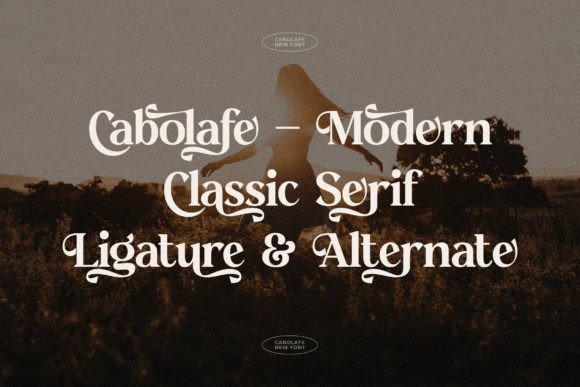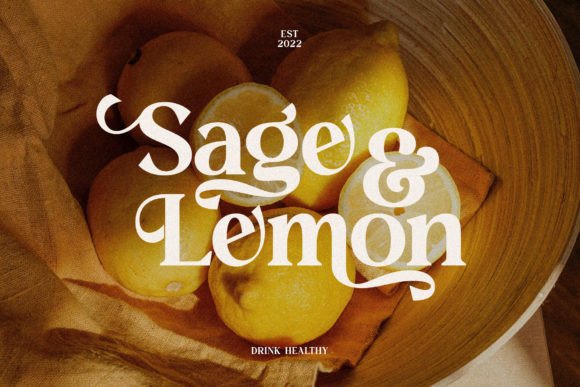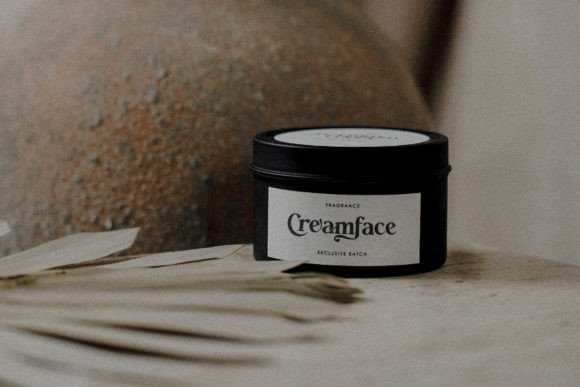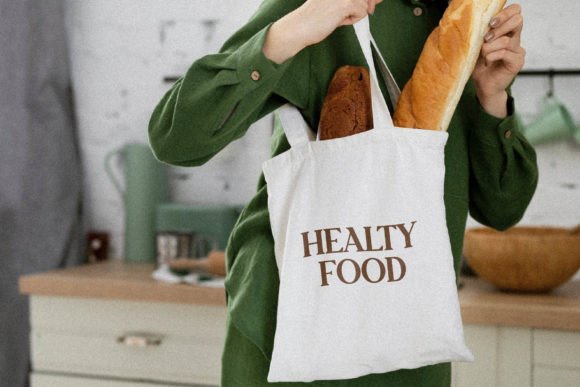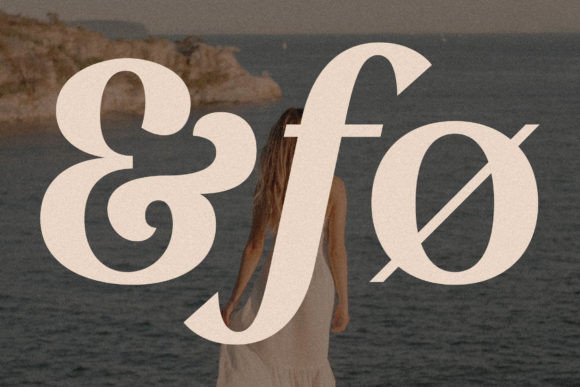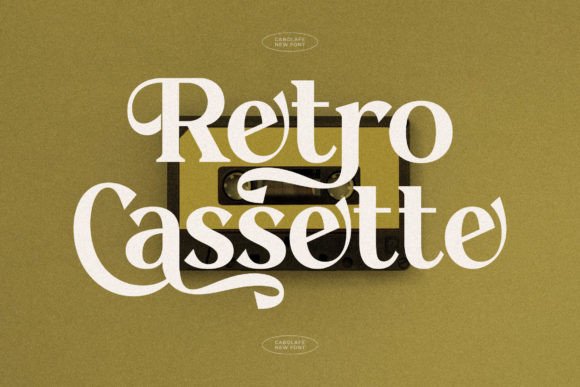
Cabolafe Font: Elevate Your Designs with Elegance and Sophistication
In the world of typography, a font can make or break a design. For designers and crafters seeking to add a touch of luxury and elegance to their work, the Cabolafe font is an excellent choice. This modern and classic serif font boasts a unique style and modern look, making it perfect for a wide range of applications, from elegant logos and book or movie titles to fashion brands, magazines, and more.
The Characteristics of Cabolafe Font
Cabolafe is a carefully crafted serif font that combines the best of both worlds: the sophistication of traditional serif fonts and the sleekness of modern typography. Its unique style is characterized by:
- Classic Serif Structure: Cabolafe features a traditional serif structure, which provides a sense of timelessness and elegance.
- Modern Twists: The font incorporates modern elements, such as clean lines and subtle geometric shapes, giving it a fresh and contemporary look.
- High Legibility: Cabolafe is designed to be highly legible, making it perfect for body text, headings, and titles.
Use Cases for Cabolafe Font
Cabolafe’s versatility makes it an excellent choice for a wide range of design projects. Here are some use cases where Cabolafe truly shines:
- Elegant Logos: Create a luxurious brand identity with Cabolafe’s sophisticated and refined style.
- Book or Movie Titles: Add a touch of classic elegance to your book or movie titles with Cabolafe’s beautiful serif structure.
- Fashion Brands: Elevate your fashion brand’s typography with Cabolafe’s modern and stylish aesthetic.
- Magazines and Newspapers: Use Cabolafe as a headline or body font to add a touch of sophistication to your publication.
- Clothing and Apparel: Create stylish and eye-catching labels, tags, and packaging with Cabolafe.
- Lettering and Quotes: Use Cabolafe to create beautiful lettering and quote designs for social media, posters, or prints.
Why Choose Cabolafe Font?
With so many fonts available, why choose Cabolafe? Here are a few reasons why designers and crafters love Cabolafe:
- Unique Style: Cabolafe’s distinctive style sets it apart from other serif fonts, making it perfect for designers seeking something new and exciting.
- High-Quality Design: Cabolafe is meticulously designed to ensure high-quality output, even at small sizes.
- Easy to Read: Cabolafe’s clear and legible design makes it perfect for long-form content, such as articles and blog posts.
- Versatile: Cabolafe can be used for a wide range of design projects, from elegant logos to body text.
In conclusion, Cabolafe is an exceptional font that offers a perfect blend of classic elegance and modern sophistication. Its unique style, high legibility, and versatility make it an excellent choice for designers and crafters seeking to elevate their designs. Whether you’re creating an elegant logo, book or movie title, fashion brand, or magazine, Cabolafe is sure to impress. So why wait? Try Cabolafe today and take your designs to the next level!